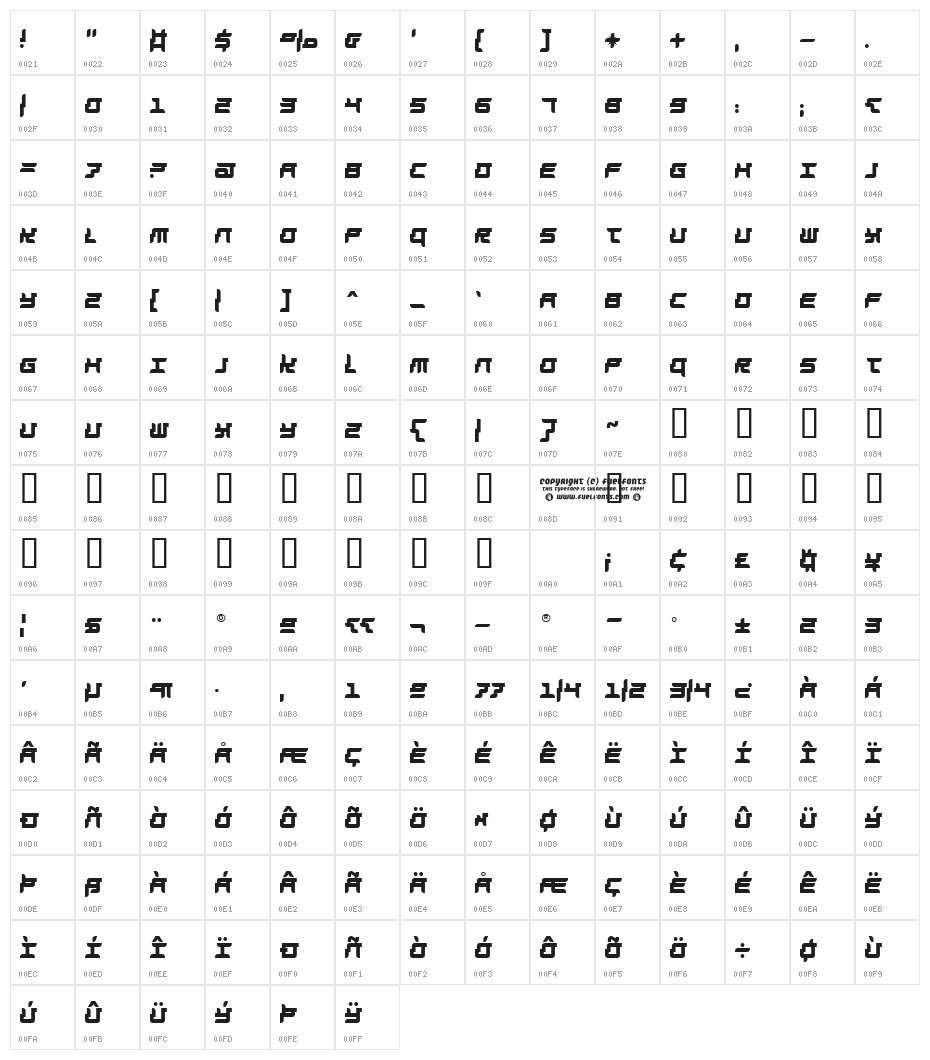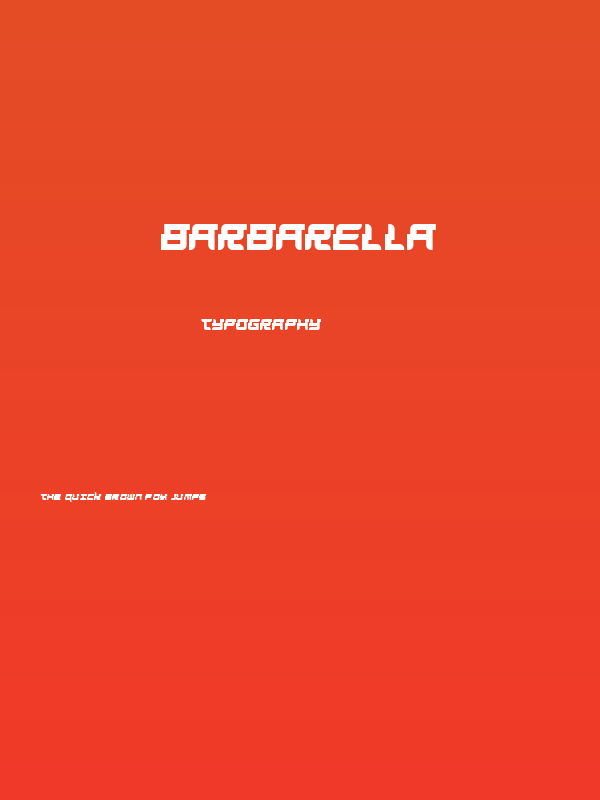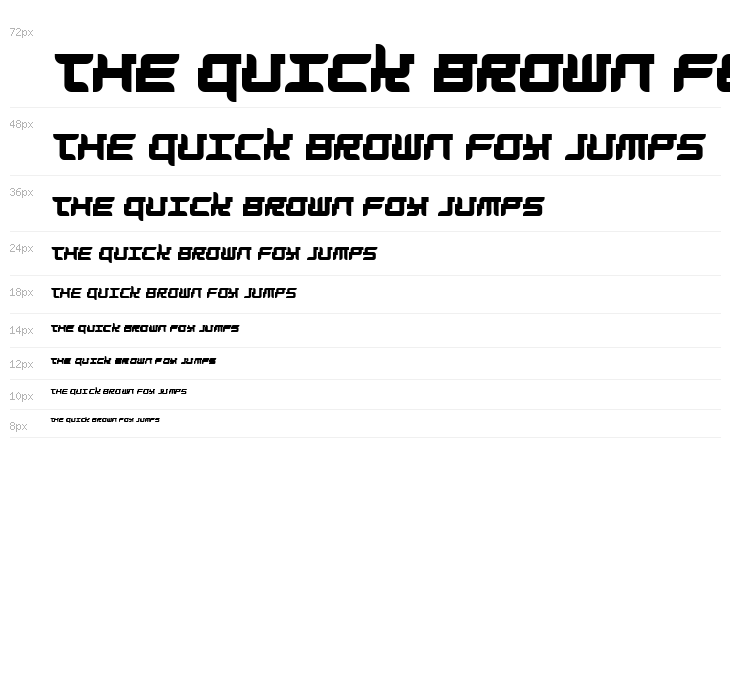
Barbarella Font
Barbarella Description
This font features a bold, geometric design with a futuristic and digital aesthetic. The characters are constructed with thick, block-like shapes that create a strong visual impact. Each letter is distinct, with angular edges and a uniform stroke width that contributes to a cohesive look. The font maintains a consistent height across all characters, enhancing readability while preserving its unique style. The numbers and special characters follow the same design principles, ensuring a harmonious appearance throughout. This font is ideal for projects that require a modern and edgy feel.